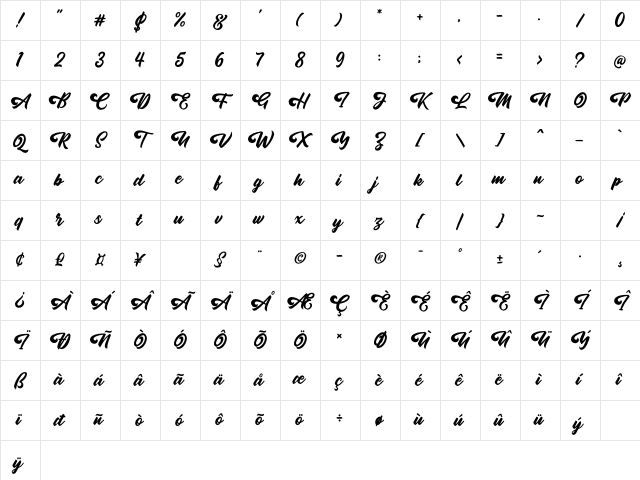
Oatlander Regular Free Font
Oatlander Regular
Designer: Almarkhatype 2019 - Abdul Malik Wisnu
Design Context for Oatlander
Oatlander is a composed and adaptable typeface that performs quietly and consistently across a wide range of design contexts.